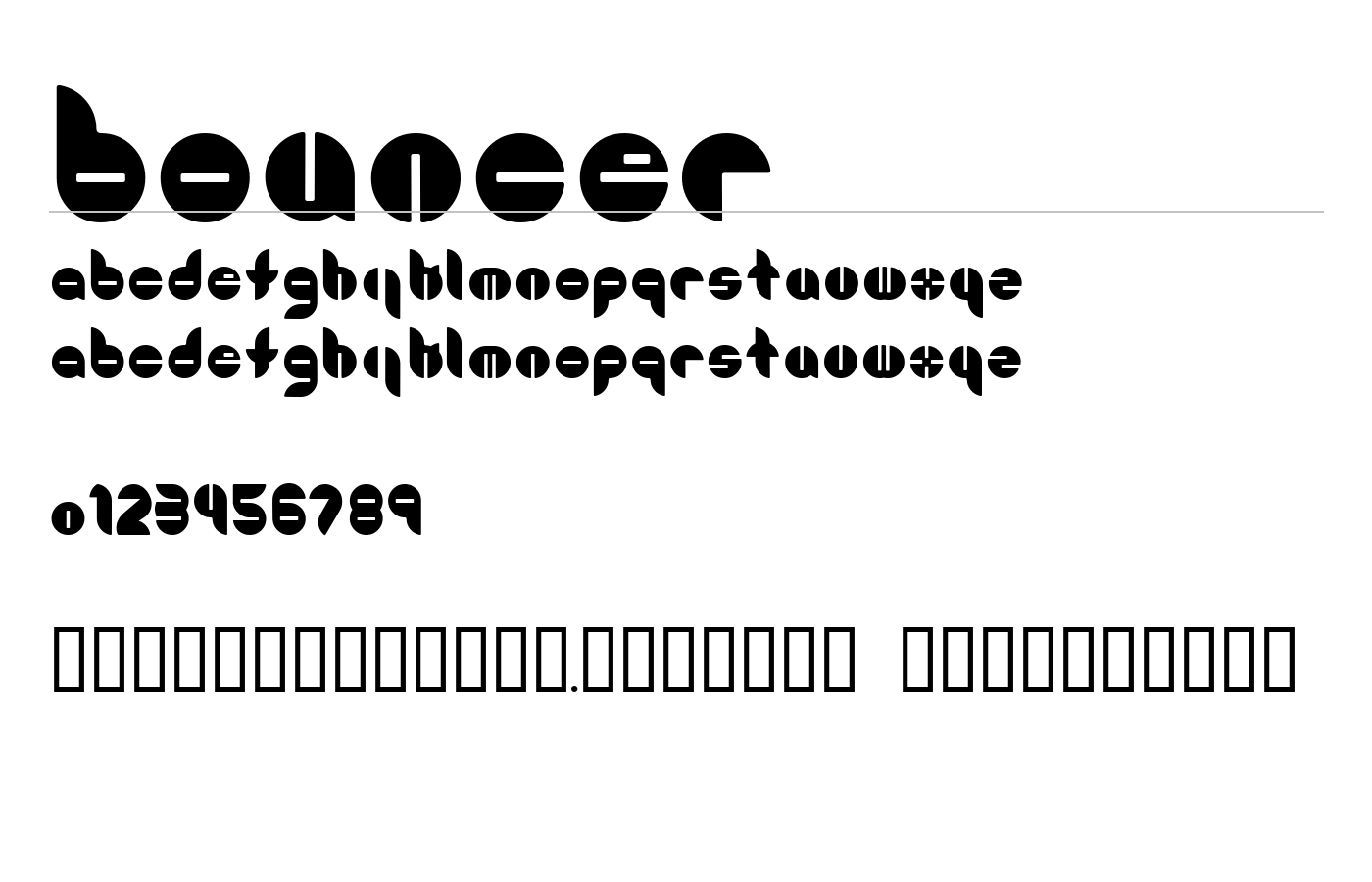
Bouncer is a bold, geometric sans serif font with a playful and futuristic feel, characterized by thick, rounded shapes and segmented letterforms that create a sense of motion and energy. Its unique and stylized design makes it ideal for creative headlines, logos, and branding where a modern and eye-catching appearance is desired. This font works best in display settings rather than body text, bringing a distinctive and dynamic personality to fashion, tech, or entertainment projects.
Bouncer Font
About Bouncer Font